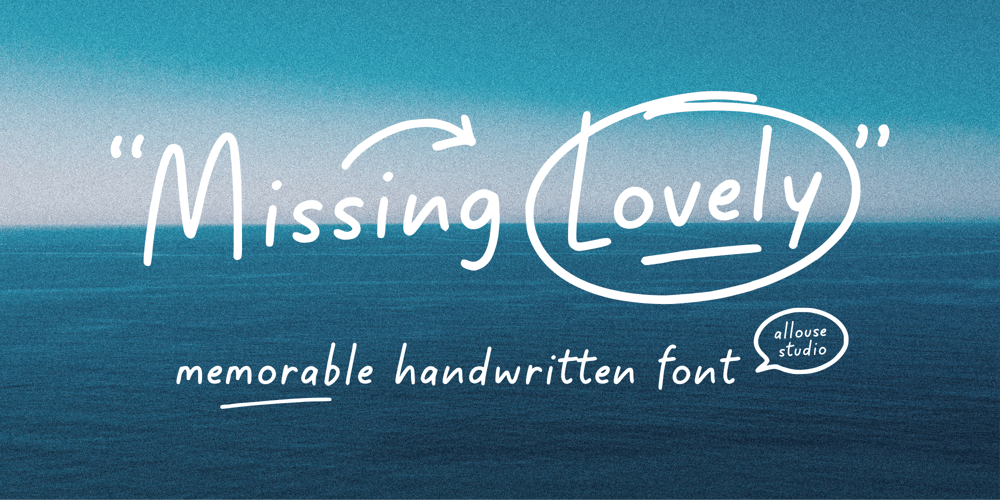
Missing Lovely Font Family was designed by Fachrizal Yusuf and published by Allouse Studio. Missing Lovely contains 1 styles and family package options. Proudly Presenting, Missing Lovely A Memorable Handwritten Font.Missing Lovely is perfect for any titles, logo, product packaging, branding project, megazine, social media, wedding, or just used to express words above the background.Missing Lovely also come with Multi-Lingual Support.Enjoy the font, feel free to comment or feedback, send me PM or email. Thank You!